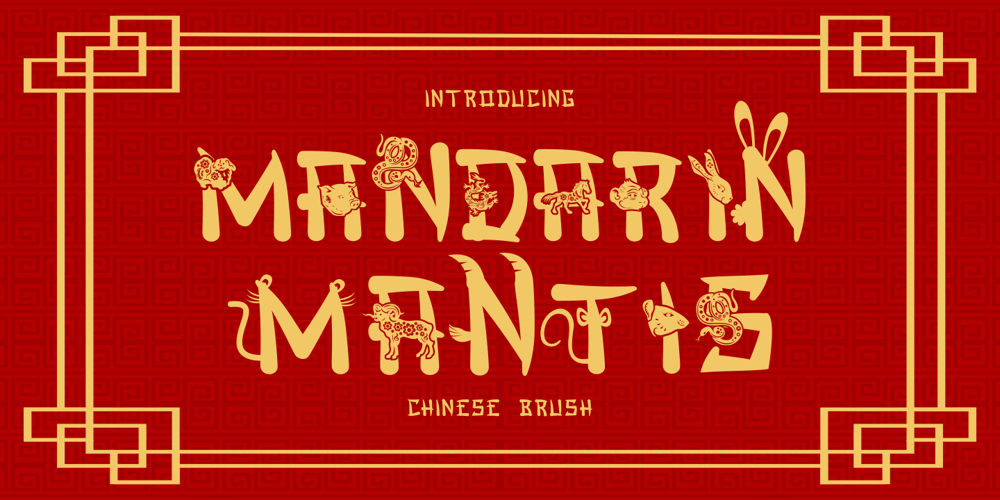
Mandarin Mantis
Mandarin Mantis font
Mandarin Mantis Font Family was designed by Putra Novembria Candra Kusuma and published by Putracetol. Mandarin Mantis contains 13 styles and family package options. Are you looking for a fun and quirky font that captures the essence of Chinese culture and tradition? Look no further than Mandarin Mantis – Chinese Brush Font, a unique and playful typeface that will spice up your design projects. This font is inspired by the authentic Chinese brush strokes that create beautiful and artistic characters. Each letter is carefully crafted to resemble the brush strokes, and features a zodiac animal that adds personality and charm to the font. You can use the letters individually or mix and match them with the animal variations to create stunning and eye-catching designs.Mandarin Mantis – Chinese Brush Font is perfect for a variety of applications, such as logos, branding, children’s themes, crafting, invitations, packaging, posters, titles, business cards, greeting cards, stickers, children’s books, magazines, and more. Whether you want to celebrate the Chinese New Year, create a logo for your Asian-inspired business, or simply add some flair to your text, this font will help you achieve your goals. Mandarin Mantis – Chinese Brush Font is a display font that will make your designs stand out from the crowd.